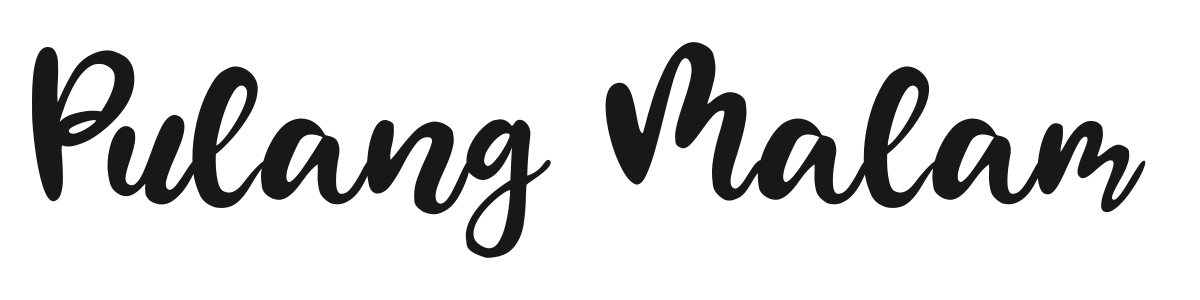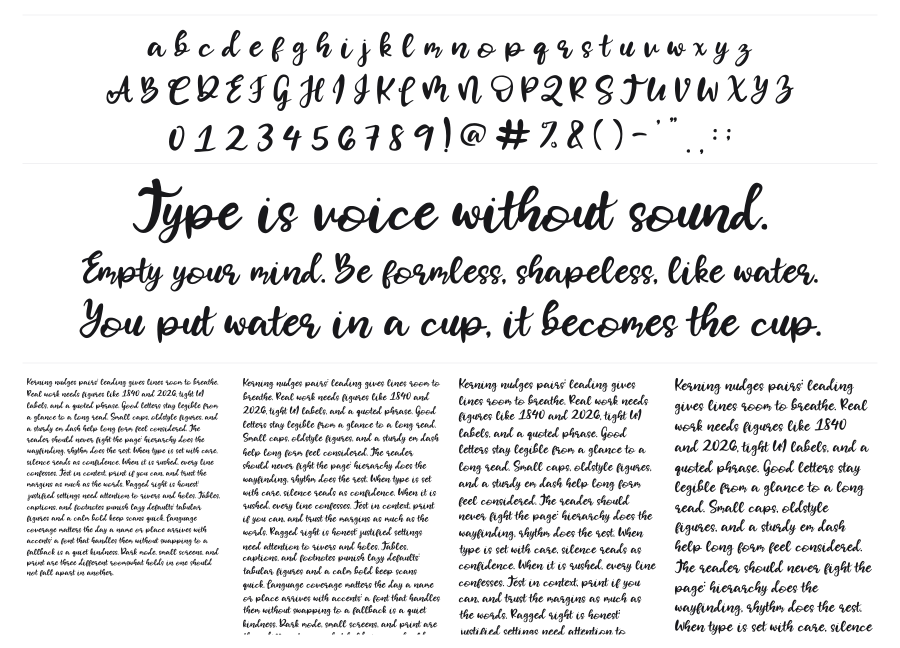
Pulang Malam
Pulang Malam is a casual brush script from Green Adventure Studio with fluid, looping strokes and a lively hand-lettered energy. The moderate stroke contrast and bouncy rhythm keep it feeling natural rather than stiff, closer to a skilled brush pen than a rigid calligraphic system. It works well at large sizes for logos, packaging, and social media graphics where personality matters.